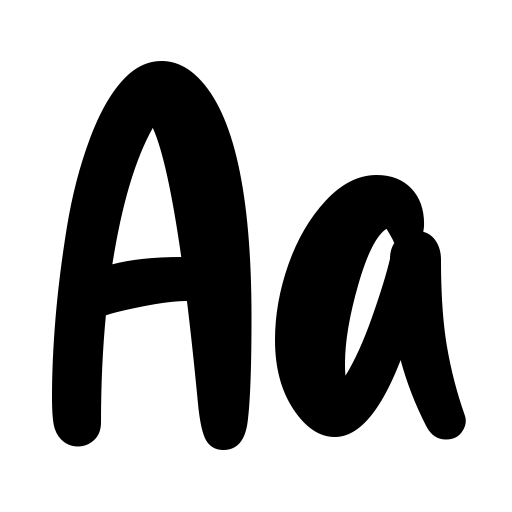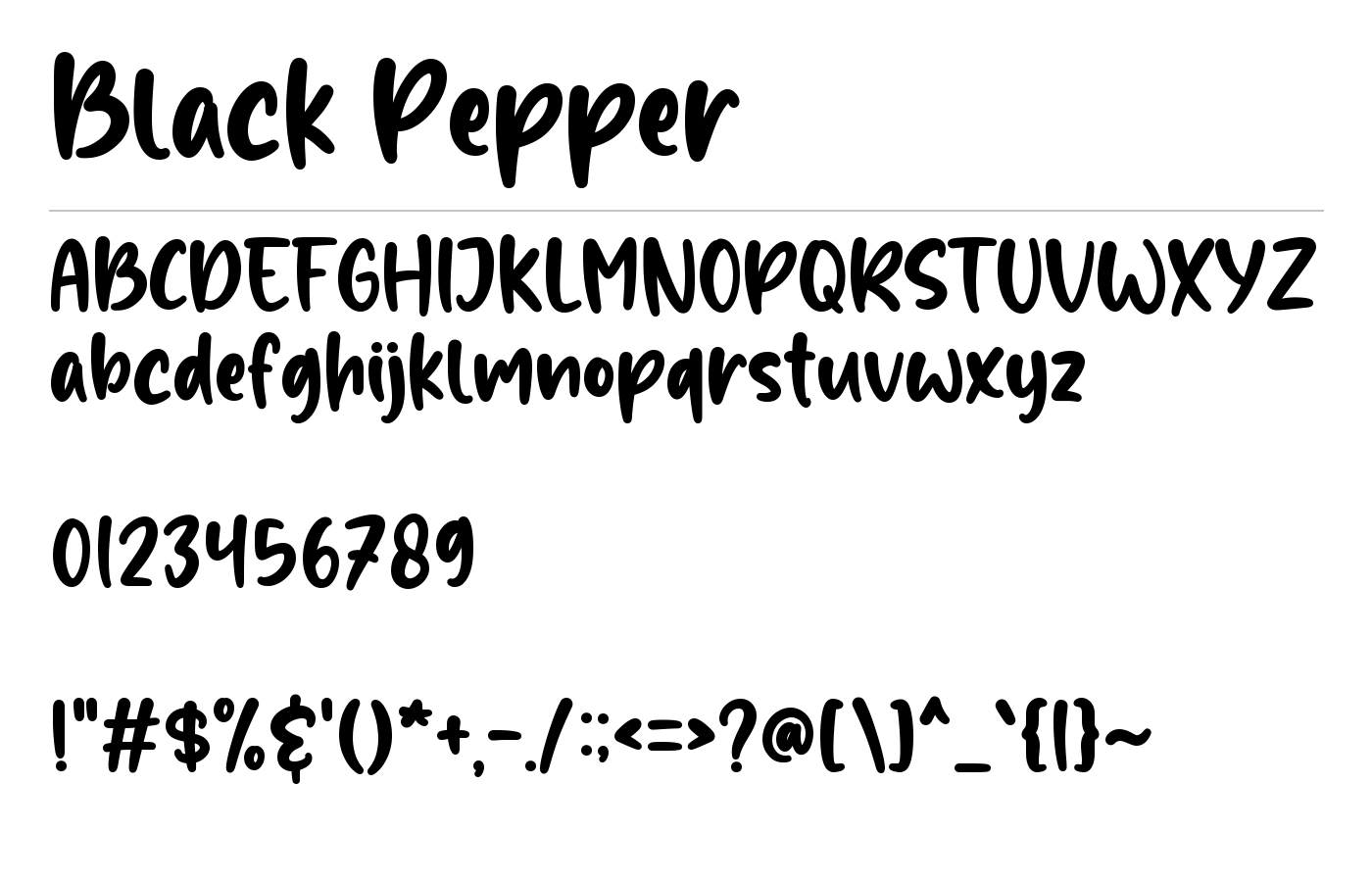
Black Pepper is a bold, playful script font with a casual, hand-drawn feel, featuring smooth, rounded strokes and a friendly, approachable style. Its lively letterforms and clear readability make it perfect for branding, social media graphics, and creative projects that want to convey warmth and personality. This font works well in both display and informal text settings, adding a touch of fun and spontaneity.
Black Pepper Font
About Black Pepper Font